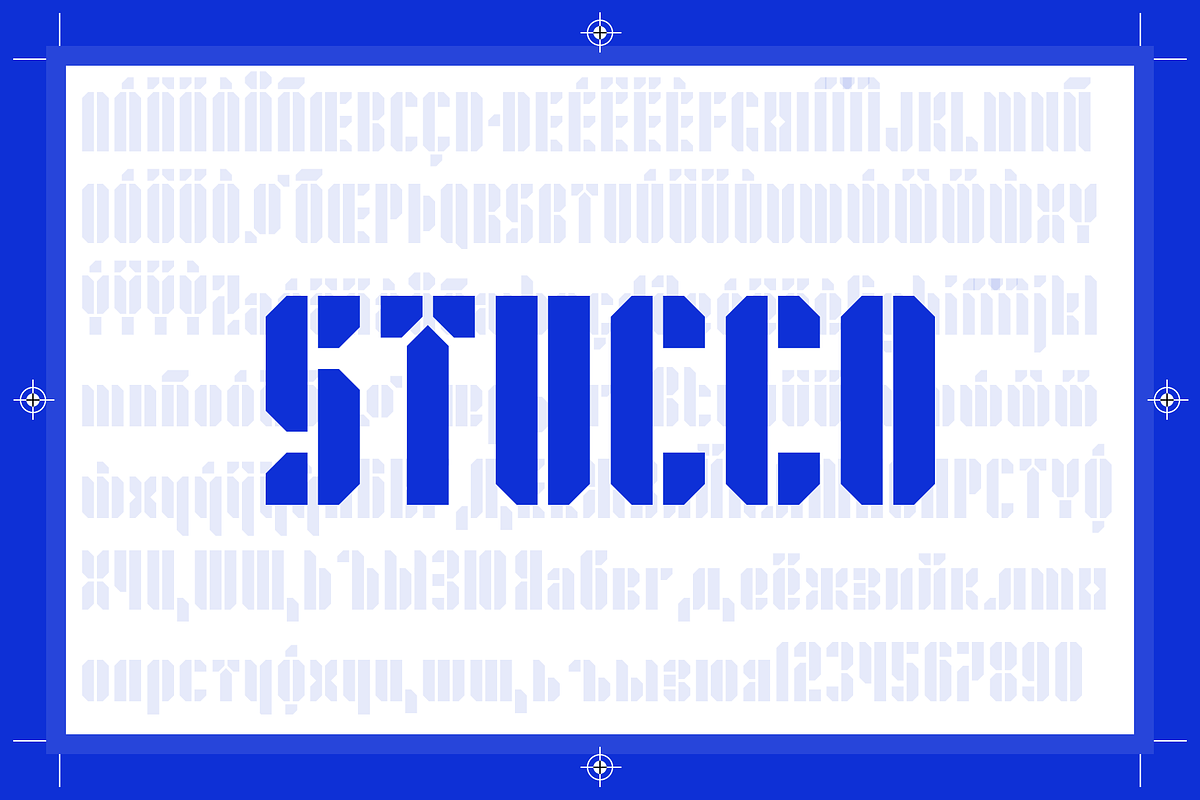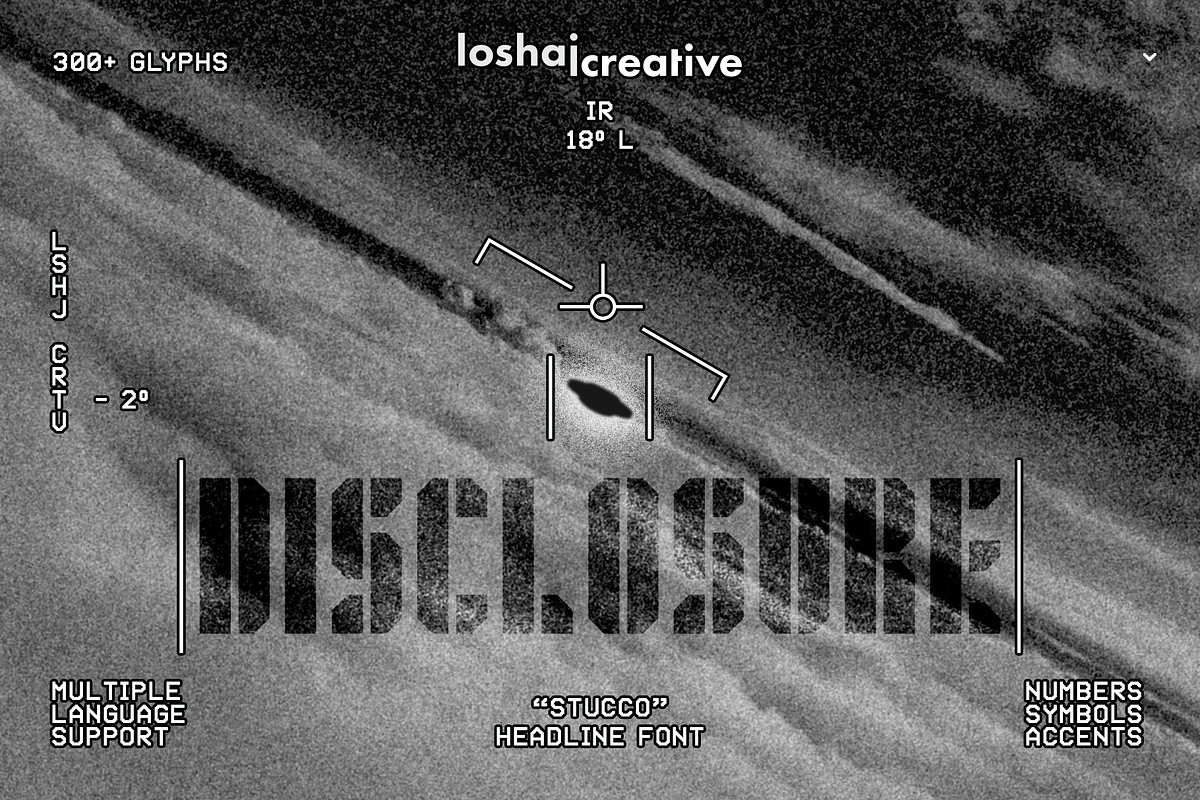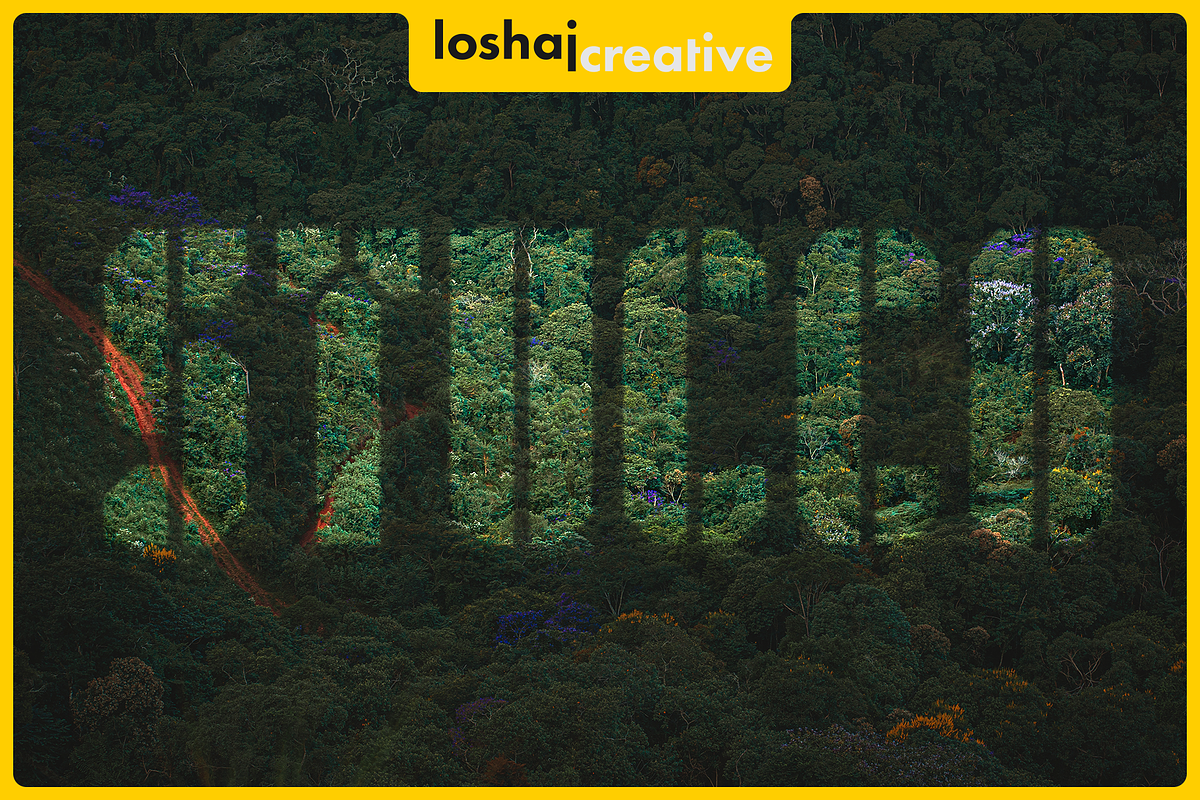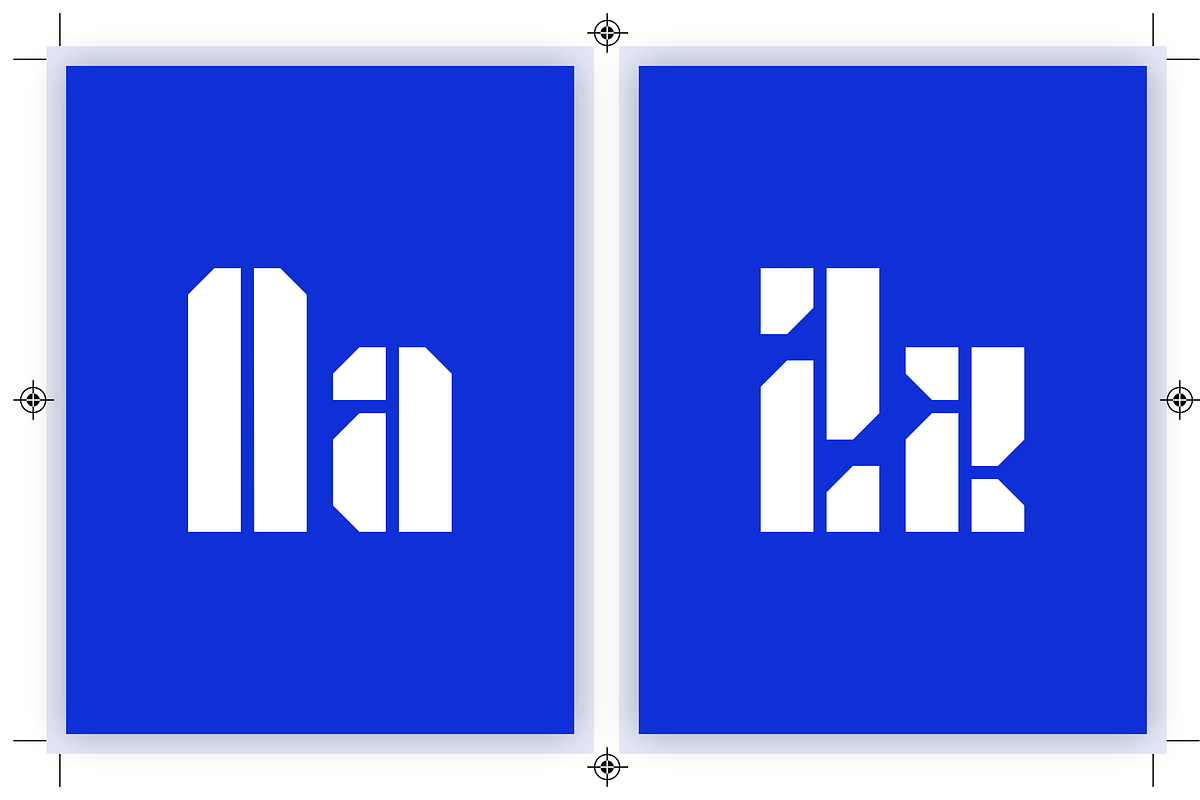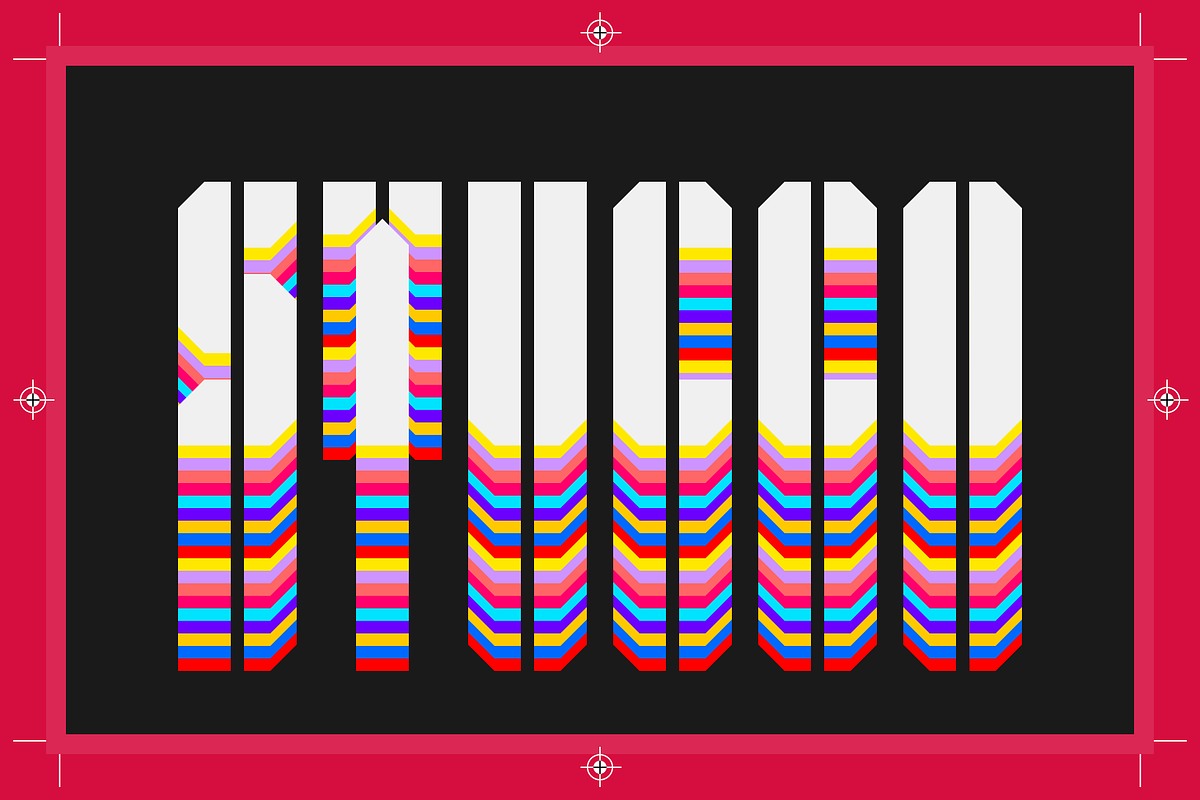
Stucco
Stucco is a construction material that is used as a decorative coating for walls, ceilings, exteriors, and as a sculptural and artistic material in architecture. Stucco can be applied on construction materials such as metal, concrete, cinderblock, or clay brick and adobe for decorative and structural purposes. In similar fashion, the Stucco font is designed to be a decorative piece and is intended to support a wide variety of mediums. The font is intended to be used as a header or headline font, but a creative designer will find other uses for it. The font contains 300+ glyphs which includes uppercase letters, lowercase alternates, numbers, symbols, accented characters for multiple language support.